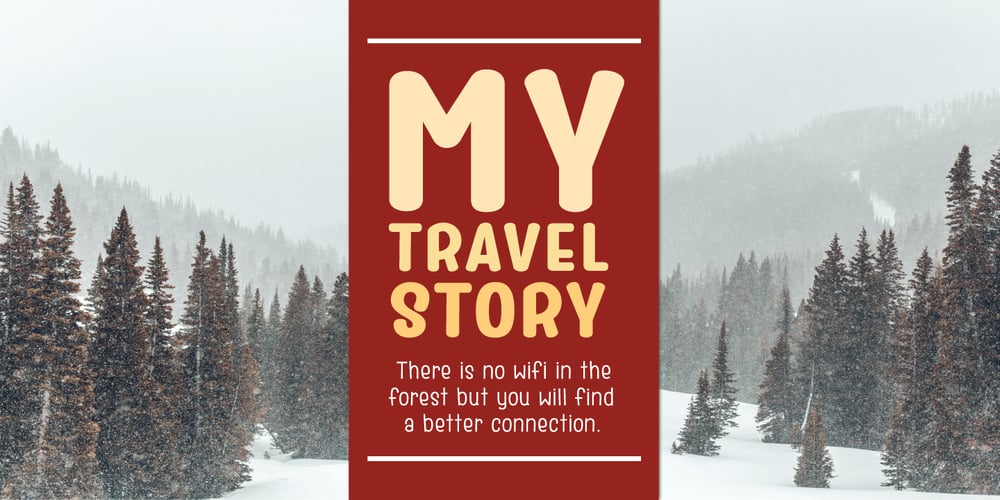
Freshy Font Family was designed by Kitiyaporn Chalermlarp and published by Katatrad. Freshy contains 12 styles and family package options. Freshy is friendly, artistic typeface that is clean enough to use for longer text. It is a complete family with 6 weights and there italic. It has an amazing character set and some of ornaments for your design. Freshy is perfect to use in any friendly situation such as a lovely packaging, restaurant menu, children’s book and etc.